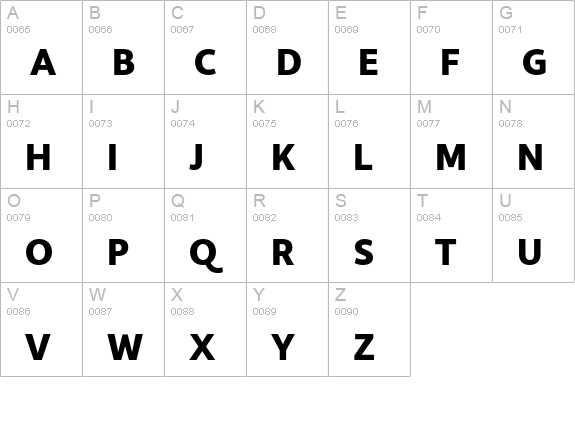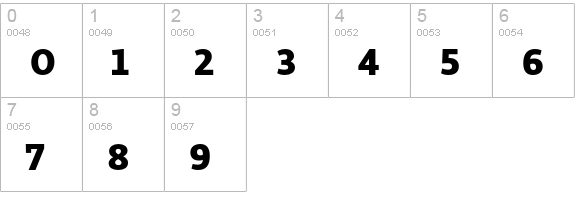
Libertad ExtraBold is an extra-heavy, attention-grabbing variant in the Libertad typeface family \xE2\x80\x94 well suited to high-impact headlines, posters, and bold branding.
Libertad ExtraBold font exudes strength, elegance, and modernity with its bold and commanding presence. Its thick, sharp lines make a bold statement while maintaining a sense of sophistication and professionalism. Perfect for making headlines, titles, and logos stand out, Libertad ExtraBold demands attention and leaves a lasting impression. The font is versatile and can be used for a wide range of design projects, from posters and banners to branding and packaging. What sets Libertad ExtraBold apart is its sense of freedom and empowerment, reflected in its name. The font embodies the spirit of liberation and bold self-expression, allowing your creativity to soar and your message to be heard loud and clear. Whether you're designing a striking advertisement or creating eye-catching social media graphics, Libertad ExtraBold will help you capture attention and make a strong impact. Best of all, Libertad ExtraBold is freely available to download at FontsMarket.com, giving you the freedom to use this powerful font in your projects without any restrictions. Elevate your designs with Libertad ExtraBold and unleash your creativity with this bold and expressive typeface.